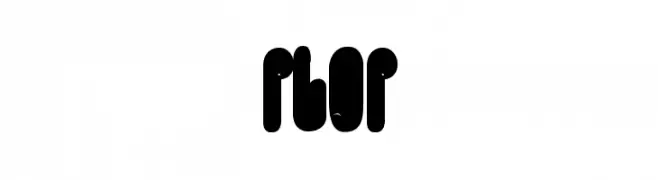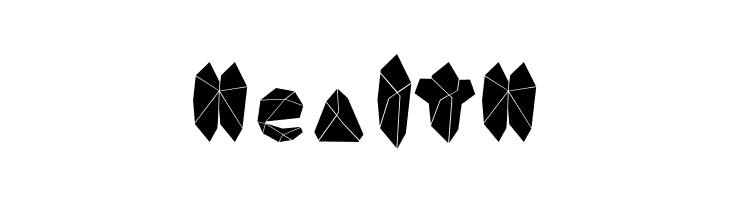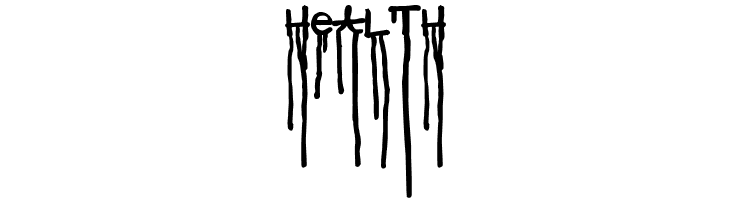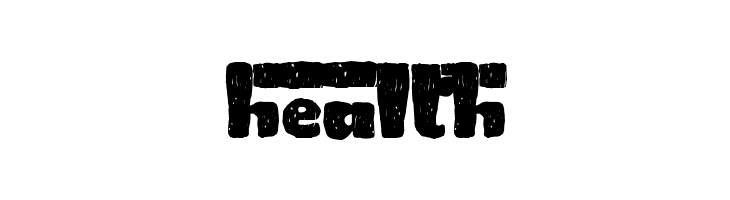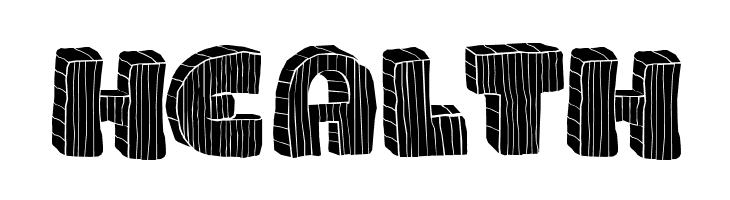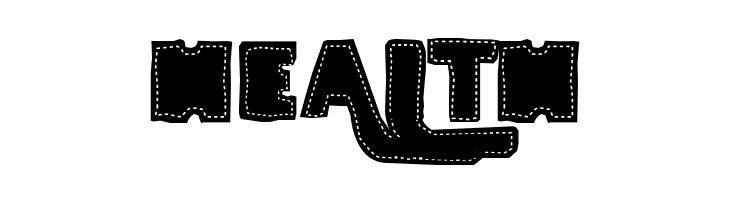
A bold, playful font with a hand-drawn, dynamic style.
A bold, playful font with thick strokes and a modern, decorative style.
Hand-drawn decorative dingbat font with abstract portraits and symbols.
A modern, geometric sans-serif font with a clean and minimalist design.
A bold, rounded sans-serif font with smooth curves and uniform stroke width.
A modern sans-serif font with rounded edges and uniform strokes.
A bold, playful font with rounded edges and a hand-drawn feel.
A bold, playful font with chunky design and star-accented 'I'.
A whimsical decorative font with monster-themed glyphs, perfect for playful designs.
A bold, playful font with rounded edges and a whimsical style.
A bold, textured font with a rugged, industrial style.
A bold, dynamic font with a playful and energetic style.
A bold, modern font with angular edges and a striking presence.